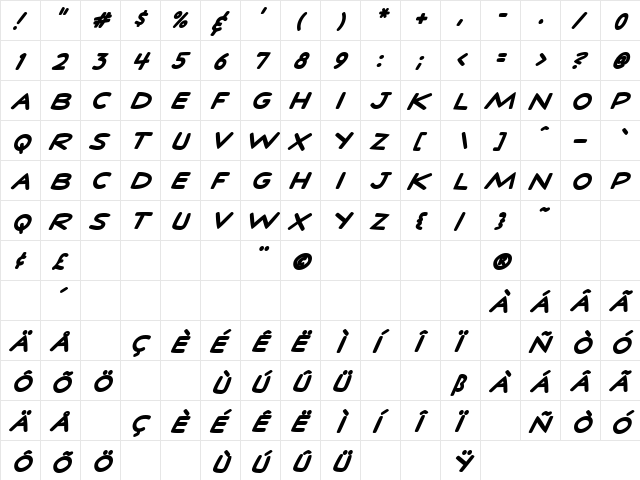
ComicTalkBoldItalic Regular Font Preview
ComicTalkBoldItalic Regular
ComicTalkBoldItalic Regular Font Details
Design Context for ComicTalkBoldItalic Typeface
ComicTalkBoldItalic has an approachable, lighthearted character — its loose, expressive forms are well-suited to children's content, casual branding, and fun-first design. The slanted form adds forward momentum and visual energy.
Font Pairing: Pairs well with a rounded or humanist sans for body copy, maintaining the friendly tone without relying on ComicTalkBoldItalic to carry extended reading.
Pro Tip: Avoid using ComicTalkBoldItalic for long passages of text — it works best for headlines, labels, and short calls to action.